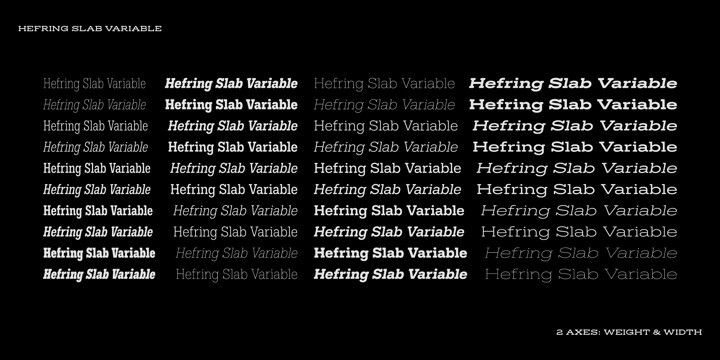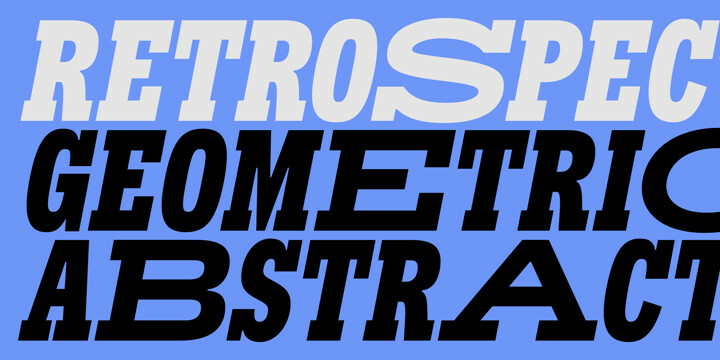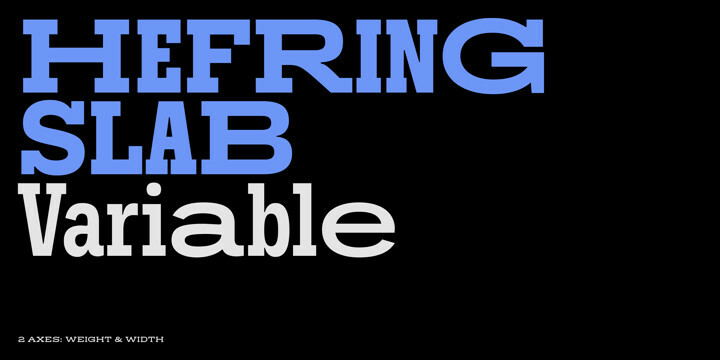
Hefring Slab Variable Font Family
Hefring Slab Variable Font FamilyHefring Slab Variable is a modern Slab Serif. Based on simple geometry, it has minimal stroke contrast, solid serif presence and a uniform thickness of strokes. Inspired by the work of the renowned Margaret Vivienne Calvert, Hefring Slab Variable is robust, clear and functional. It supports Latin-based languages, available in Regular and Italic and allows you to create custom weights within the versatile width and weight parameters.